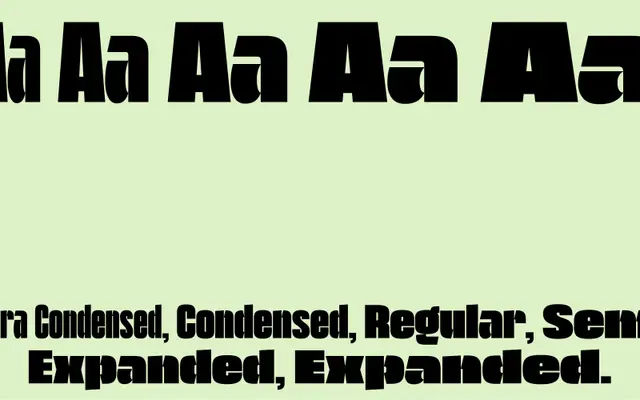
Acai
The Designers Foundry · Mateusz Machalski · 2017
A geometric display typeface sketched in Rio de Janeiro, drawing from street graffiti and brutalist architecture across six width variants from Ultra Condensed to Ultra Expanded.
Designed by Mateusz Machalski with roots in a 2017 visit to Rio de Janeiro, Acai pulls from bold street lettering and the collision of brutalist and colonial architecture. Six width styles run from Ultra Condensed to Ultra Expanded, with a variable font version added in March 2024 alongside additional weights. Two stylistic sets offer alternate single-storey forms for 'a' and 'g', and the family now covers Latin Extended, Cyrillic and Greek.
A blocky, geometric display typeface inspired by street graffiti and brutalist architecture, with no italic cuts and a strong width-axis variable axis. The design is purely headline-oriented with no text-setting intent.